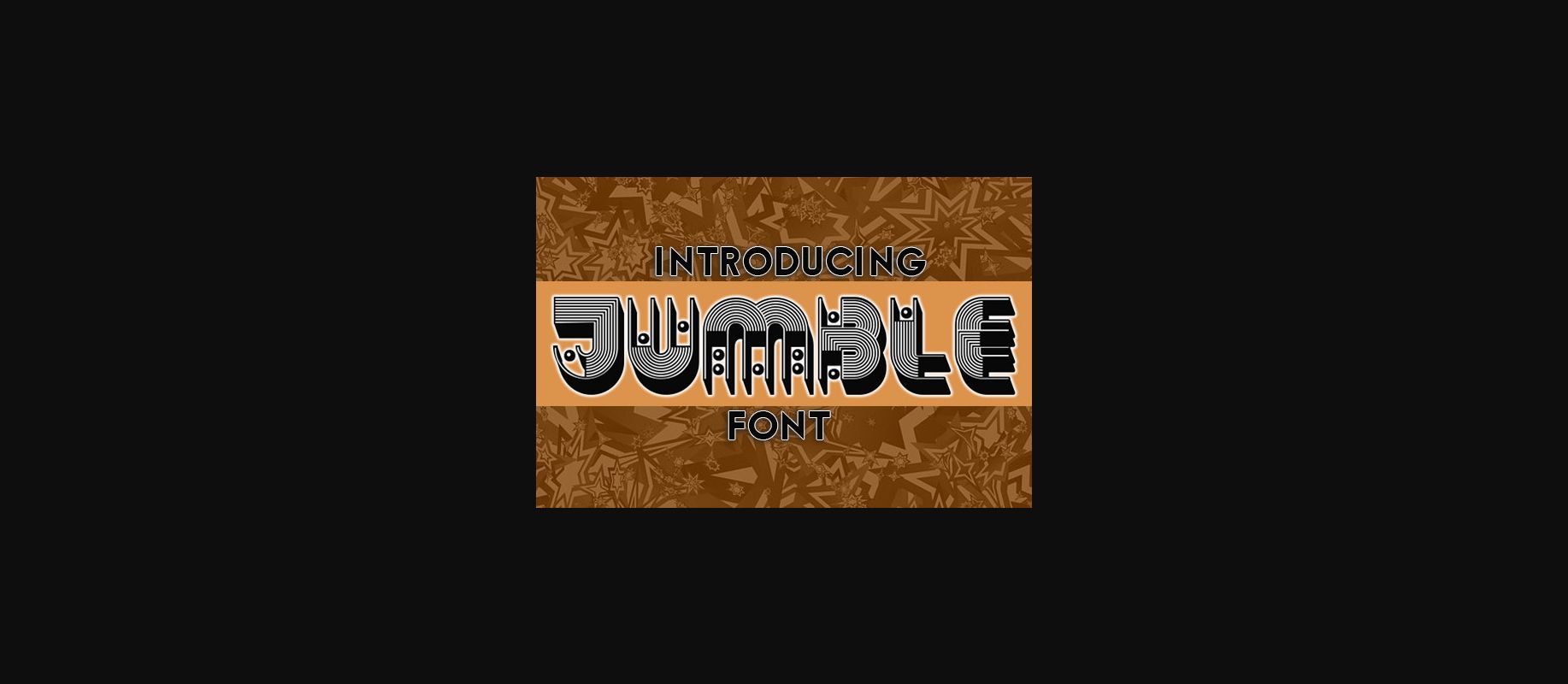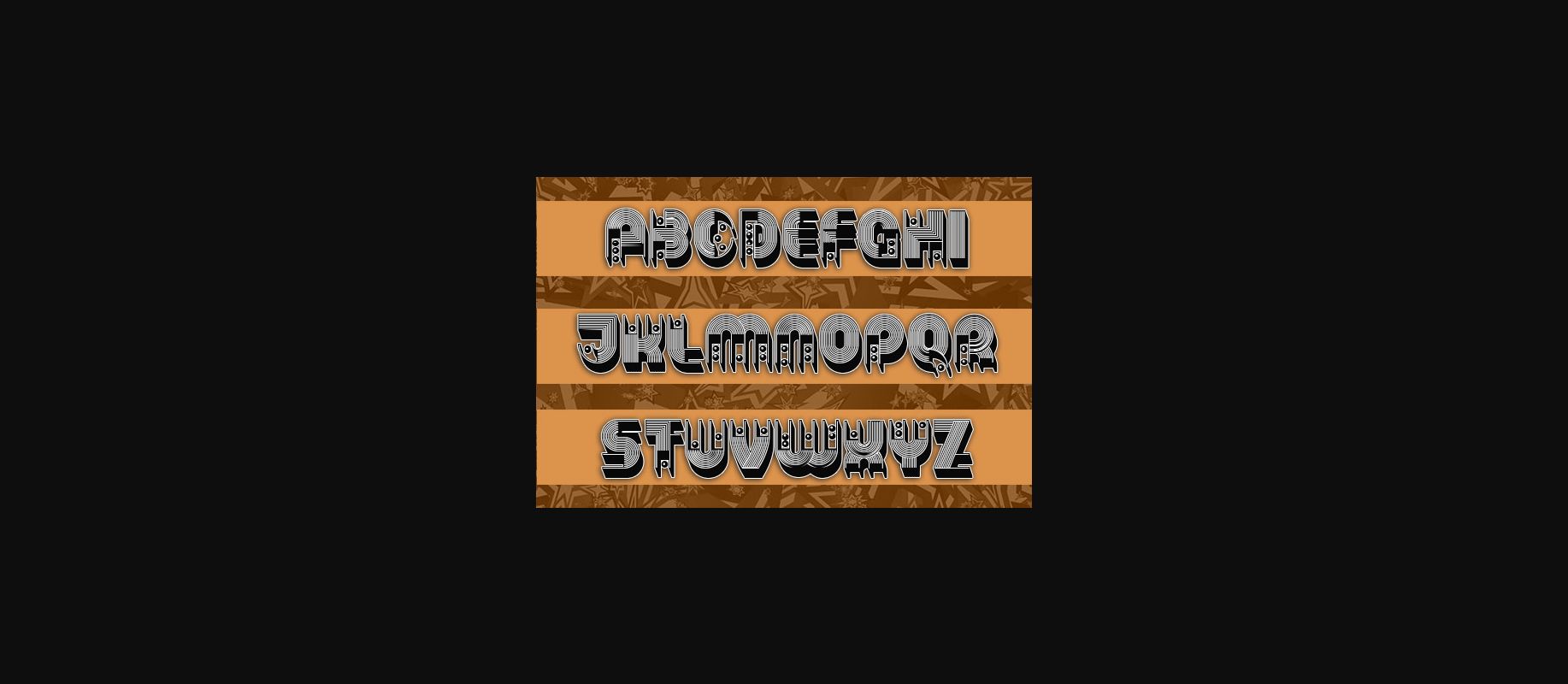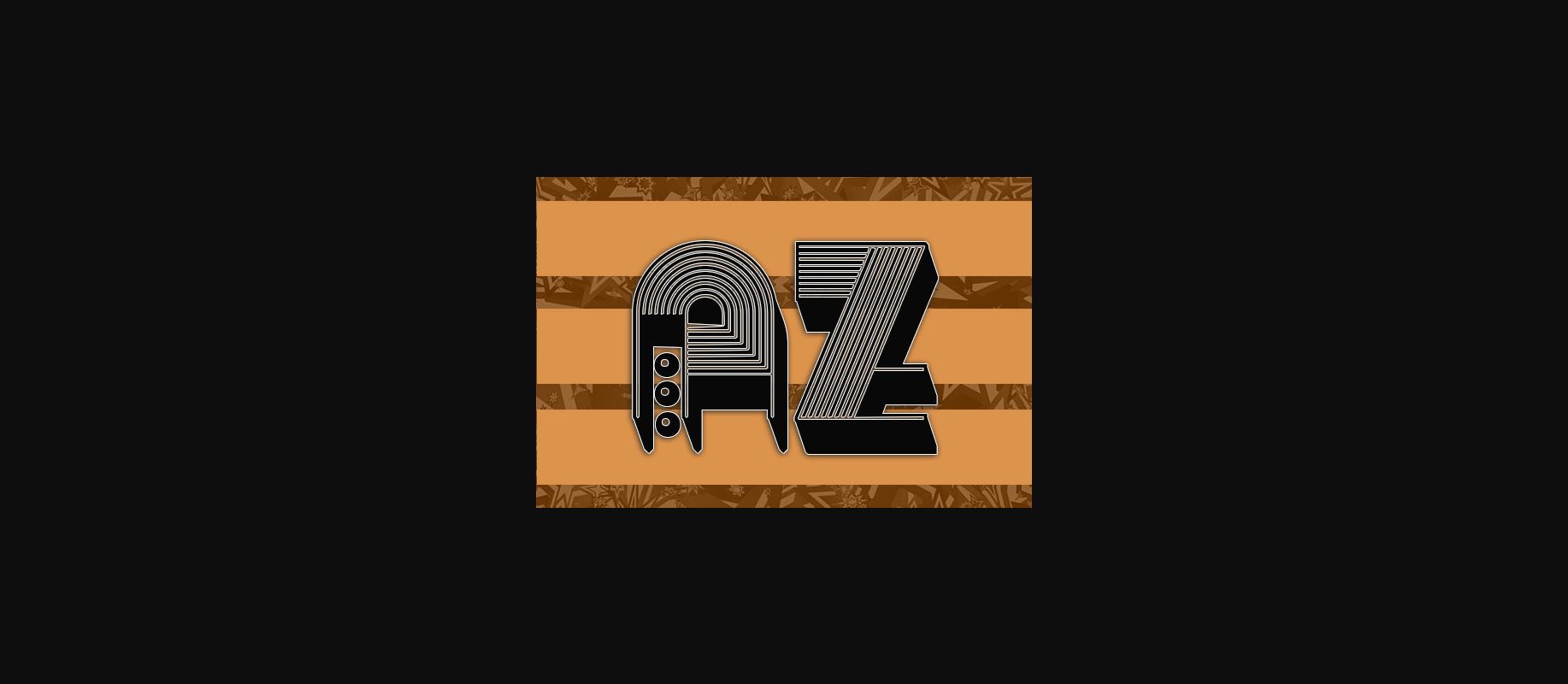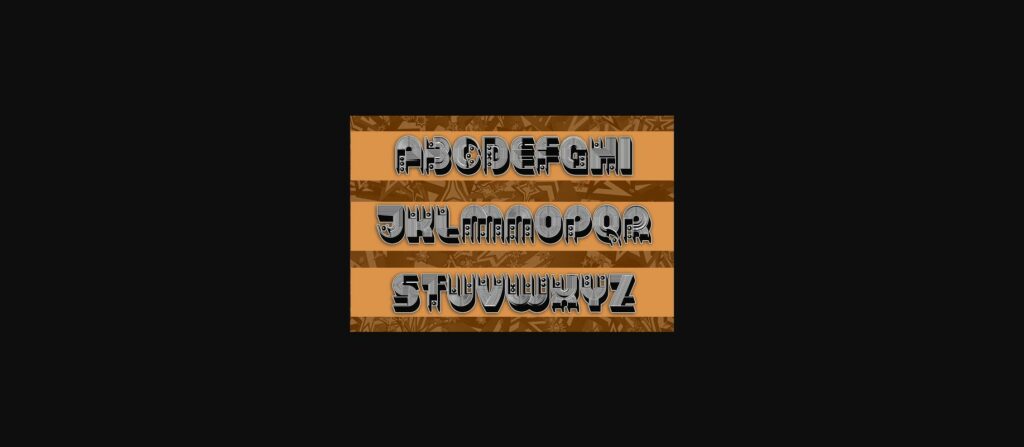
HomeDecorative FontsJumble Font Decorative Fonts Jumble Font FacebookXPinterestWhatsApp 1 of 5 ... Jumble Font Poster 2... Jumble Font Poster 3... Jumble Font Poster 4... Jumble Font Poster 5... About Jumble Font Jumble is an awesome abstract typeface that will fit any of your designs. Use this font on posters, flyers, and much more. DOWNLOAD NOW People also explored Anime Font Volaroid Duo Font Ole Font Filmotype Quiet Larisa Font Kaseng Rockens Font Alone Font Christmas Light Font Without Me Font 282 0 TagsJumbleJumble Font Previous articleQuick over FontNext articleAmora Bright Font LEAVE A REPLY Cancel reply Comment: Please enter your comment! Name:* Please enter your name here Email:* You have entered an incorrect email address! Please enter your email address here Website: Save my name, email, and website in this browser for the next time I comment. Personal Use Free Jellia Personal Use Free Read more about this font Bonifaciy Personal Use Free Read more about this font Die Nasty Personal Use Free Read more about this font Oito Personal Use Free Read more about this font BLOG To increase your work productivity, choose the most readable fonts. In today's fast-paced work environment, where digital communication and information consumption are integral to our daily routines, the choice of fonts can significantly impact... Transform Your Website: Elevate Your Typography with 7 Best Web Font Generators The 10 Best Handwriting Fonts to Add Personality to Your Designs Free Fonts Risk: Why Free Fonts Can Be Dangerous for Designers